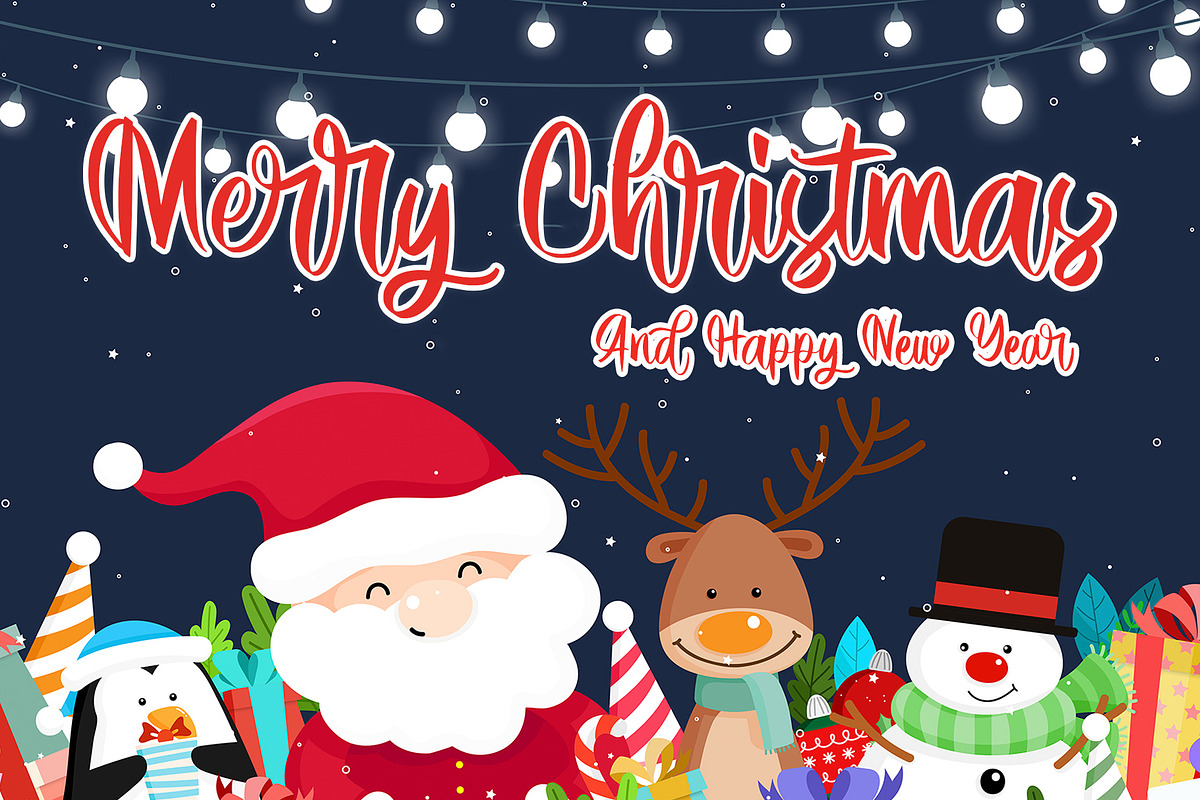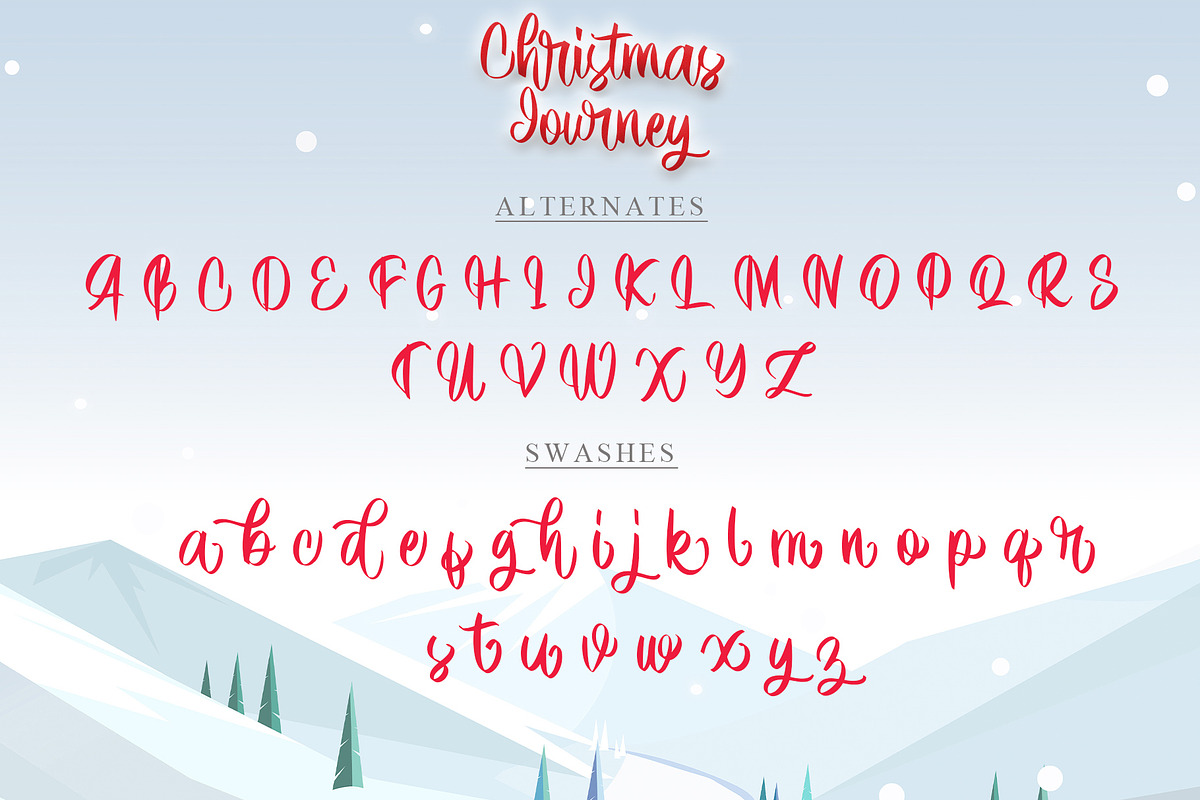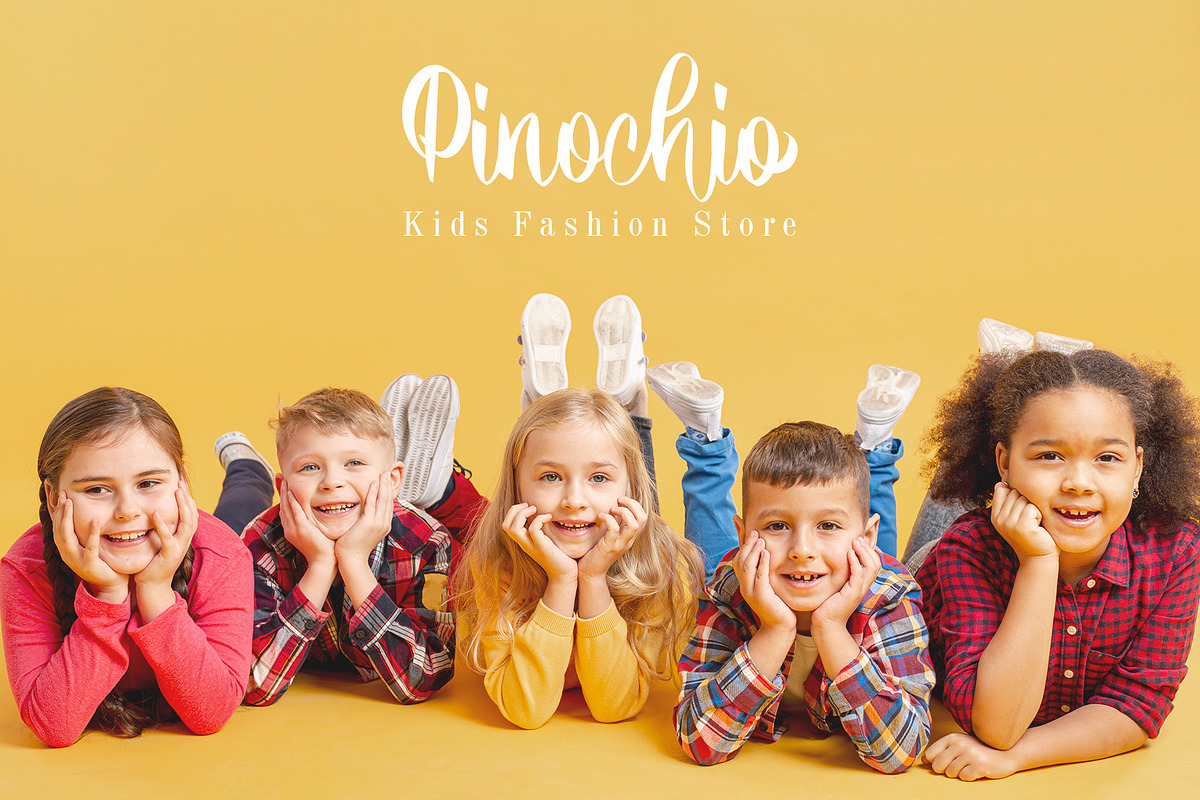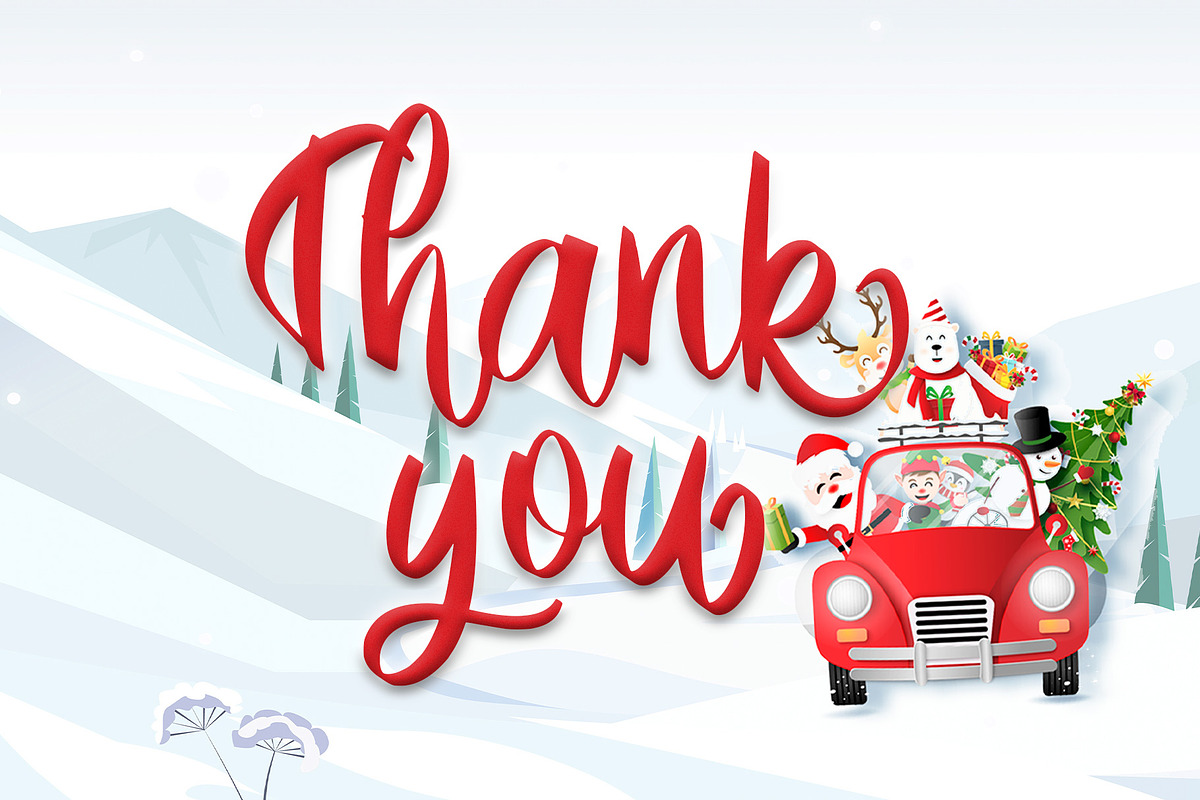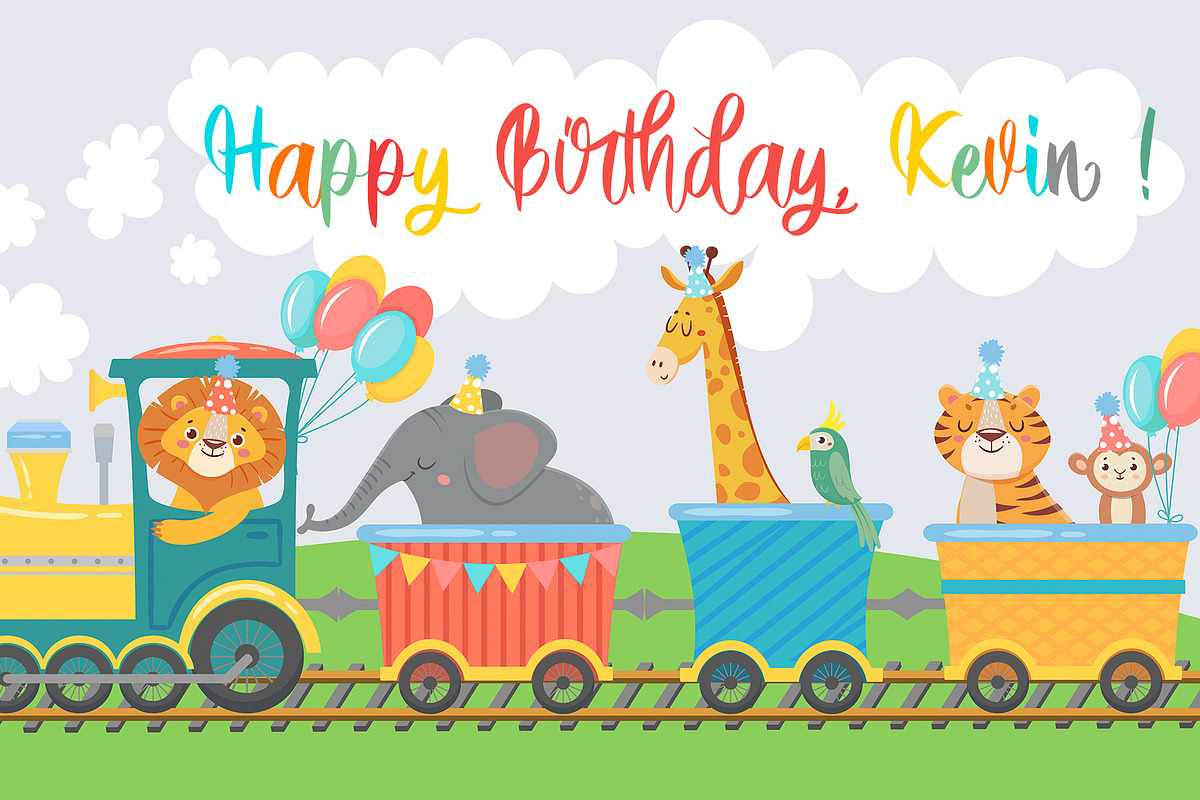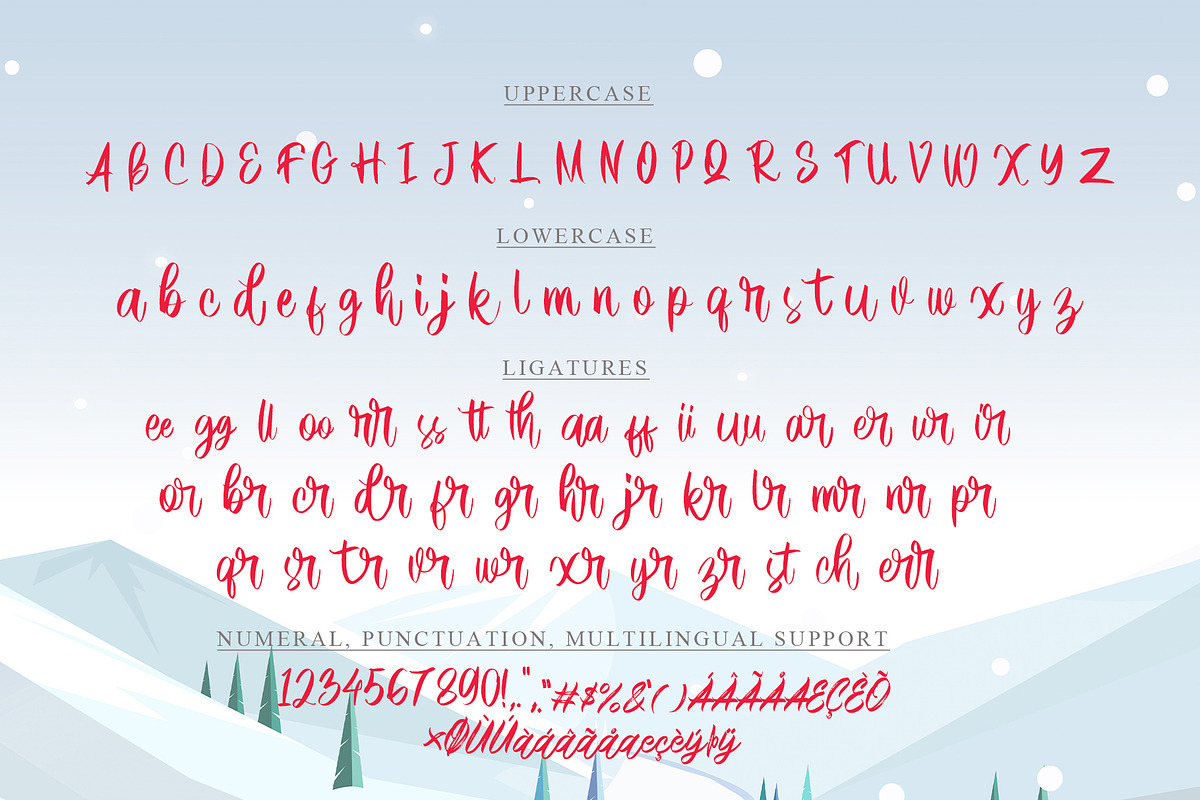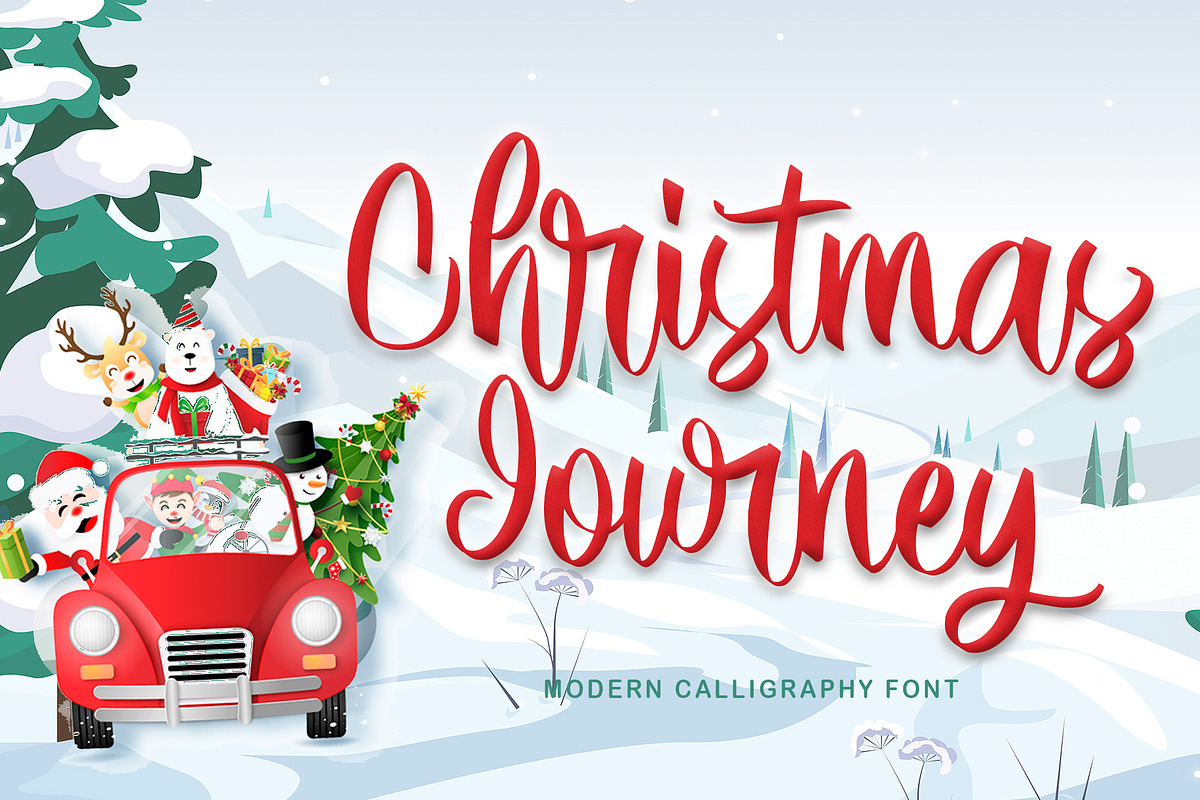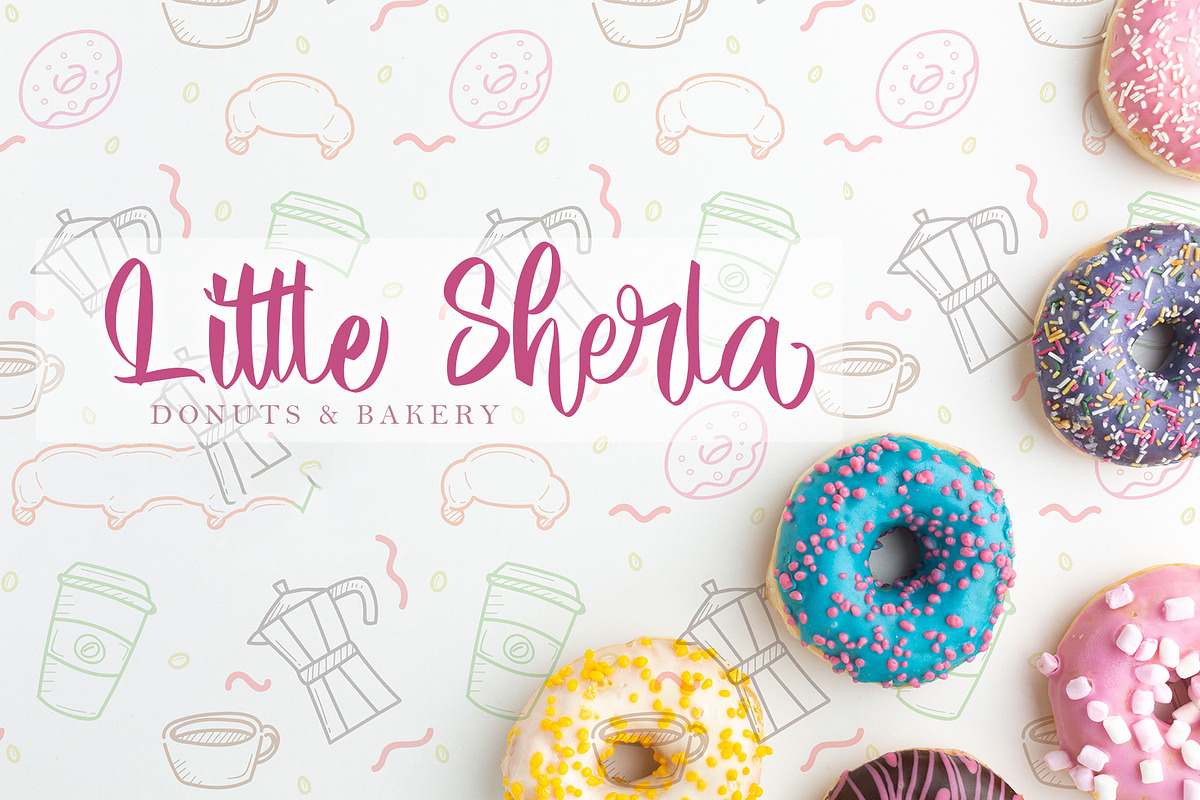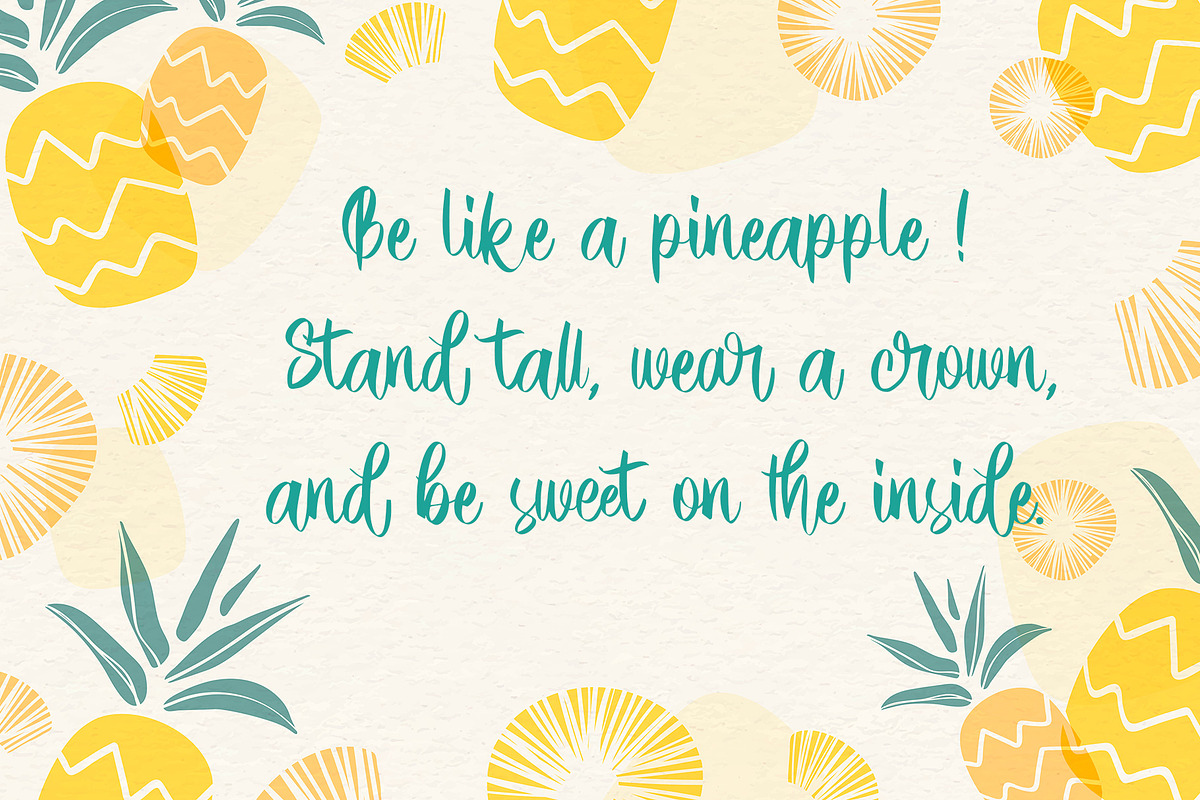
Christmas Journey
Christmas Journey is a beautiful natural handwritten font with an incredibly friendly feel and a stunning natural with a bold vibe. This font will look amazing in a great number of projects, from wedding invitations, Christmas, logo, and greeting cards to social media quotes, branding, and more! It is the perfect font for making original and outstanding designs. This font is PUA encoded which means you can access all of the glyphs and swashes with ease!
- Many features: Alternate, Swash, and Ligature
- Support multilingual; ä ö ü Ä Ö Ü ß ¿ ¡